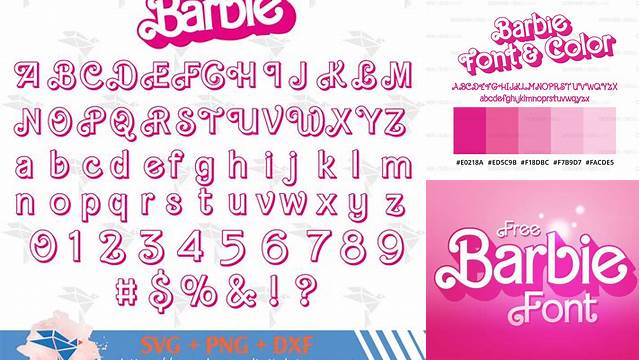
Barbie Font: Free Downloads & How To Use It
Hey there, font fanatics and Barbie enthusiasts! Are you on the hunt for that iconic Barbie font to add a touch of glamour and nostalgia to your projects? Well, you've come to the right place! In this article, we'll dive deep into the world of Barbie fonts, exploring where you can find them for free and how to use them to make your designs pop. Let's get started!
Understanding the Barbie Font
So, what exactly is the Barbie font? It's not just one single typeface; it's more of a style. Think bold, playful, and often with a retro vibe. The official Barbie logo has evolved over the years, featuring different fonts that capture the essence of the brand. You'll typically find fonts with rounded edges, a touch of elegance, and, of course, a whole lot of pink! But it's not all about pink, guys. The key here is to get that playful, stylish feel that makes you think of Barbie's Dreamhouse and all the fun that comes with it.
Key Characteristics of Barbie Fonts
To truly understand the Barbie font, let's break down its key characteristics. These are the elements that make a font feel like it belongs in Barbie's world:
- Rounded Edges: Soft, rounded edges give the font a friendly and approachable feel. This is crucial for capturing Barbie's positive and cheerful personality.
- Boldness: A bold typeface ensures that your message stands out and commands attention. Barbie is all about making a statement, and the font should reflect that.
- Playfulness: The font should have a playful and whimsical quality, reflecting the fun and imaginative world of Barbie.
- Elegance: Despite the playfulness, there's also a touch of elegance. The font should be stylish and sophisticated, just like Barbie herself.
- Retro Vibe: Many Barbie fonts have a retro or vintage feel, harking back to the brand's origins and adding a nostalgic touch.
Understanding these characteristics will help you identify fonts that capture the Barbie aesthetic, even if they're not officially licensed.
Tips for Searching
When searching for Barbie fonts, try these keywords:
- Retro fonts
- Cartoon fonts
- Bubble fonts
- Script fonts
- Display fonts
Experiment with different search terms to broaden your results and uncover hidden gems. And remember, don't be afraid to mix and match different fonts to create a unique and eye-catching design!
Using Barbie Fonts in Your Projects
Okay, you've found your perfect Barbie font – now what? Here are some ideas for how to use it in your projects:
- Party Invitations: Create dazzling invitations for Barbie-themed birthday parties, baby showers, or other special events. Use the font for headings, names, and important details.
- Social Media Graphics: Add a touch of Barbie magic to your social media posts with eye-catching graphics. Use the font for quotes, announcements, and promotional content.
- Website Design: Incorporate the font into your website's branding to create a cohesive and memorable experience. Use it for headings, logos, and call-to-action buttons.
- Logos and Branding: Design a logo for your business or personal brand that captures the essence of Barbie's style. Use the font for the company name, tagline, and other branding elements.
- Craft Projects: Use the font to create personalized gifts, decorations, and other craft projects. Print it on t-shirts, mugs, posters, and more.
Design Tips
Whether you're designing invitations, social media graphics, or a logo for your business, the perfect Barbie font can help you capture the essence of this iconic brand. So, embrace the playfulness, elegance, and retro vibe of Barbie, and let your creativity shine! And remember, have fun with it! After all, Barbie is all about celebrating life and embracing your unique style.